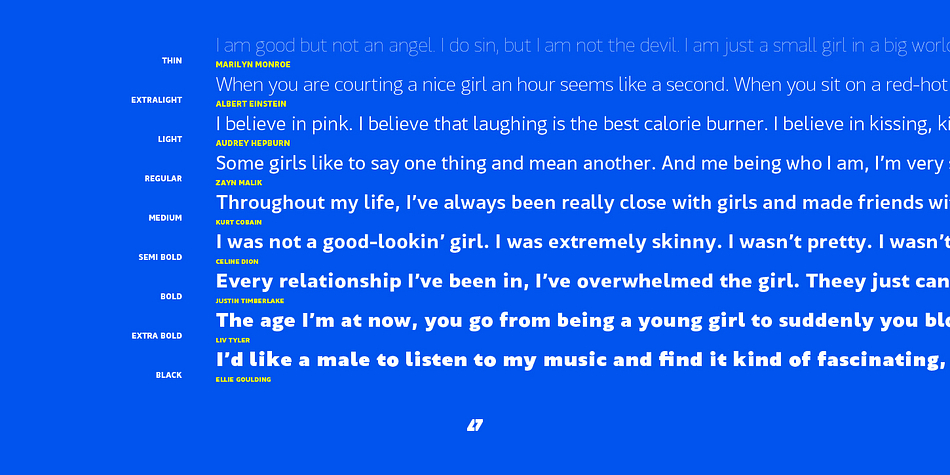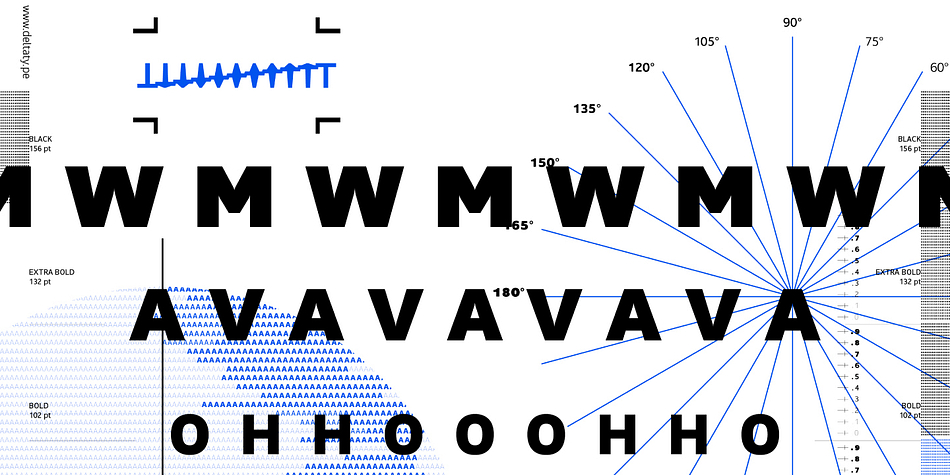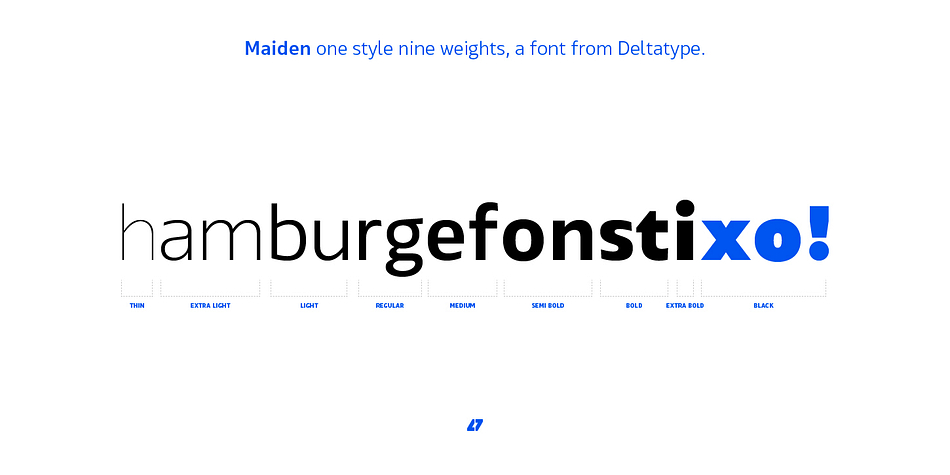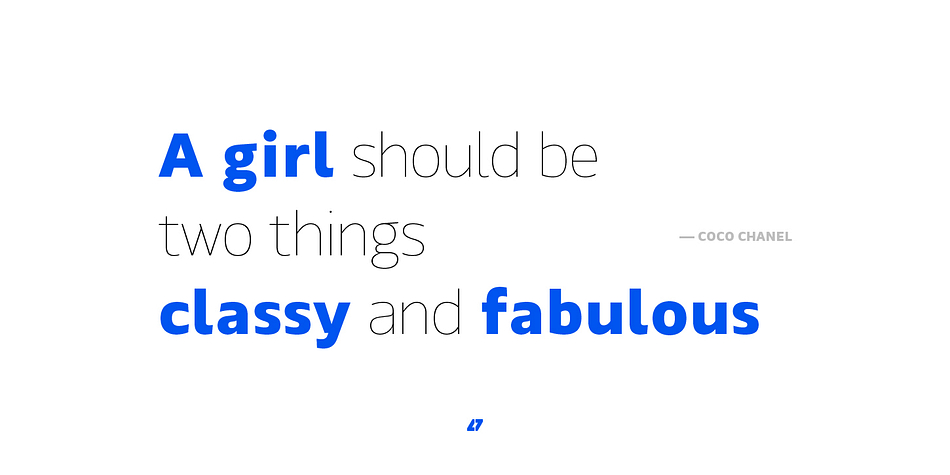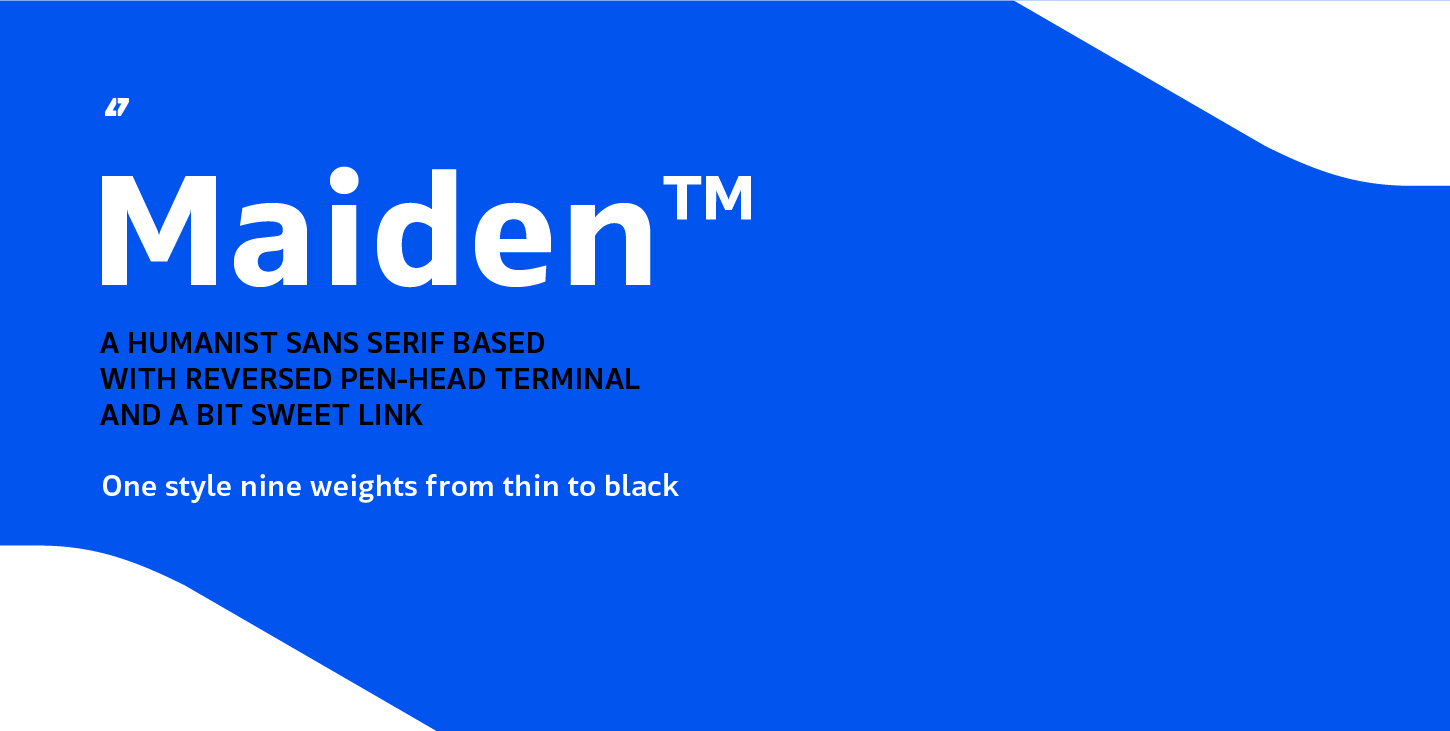
Designed by Kwanchai Akkaratammagul, Maiden is a sans serif font family. This typeface has nine styles and was published by Deltatype.
Maiden is a humanist sans-serif based typeface which contains nine weights, from thin to black. Designed to use as body text to headline. The design of Maiden typeface can recognize easily at the terminal with reverse pen-head style and a bit sweet link.